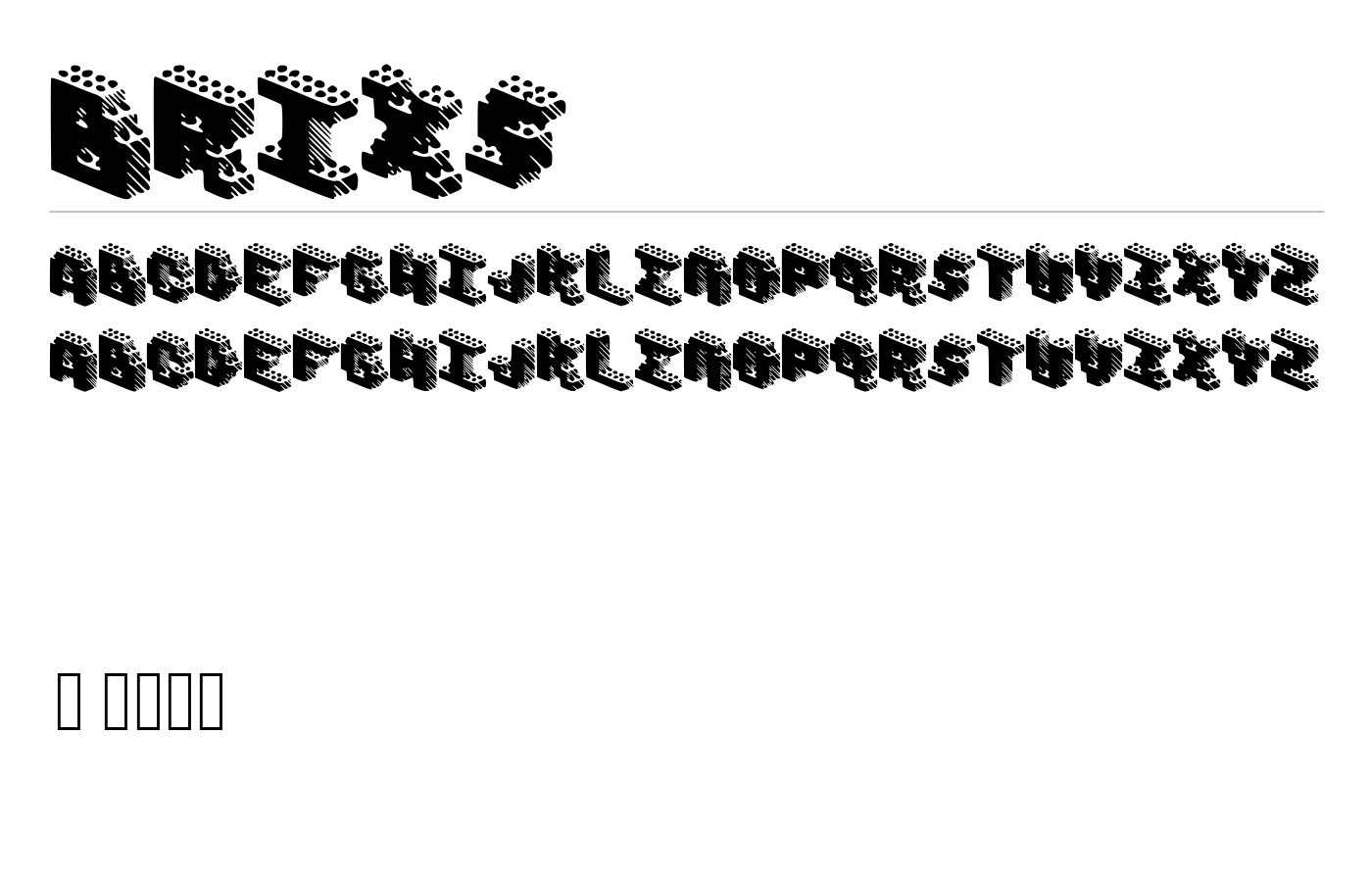
Brixs is a bold, decorative display font that features a unique 3D block style with a playful dotted texture on its surfaces, giving it a dynamic and eye-catching appearance. Its all-caps design and strong geometric forms make it ideal for headlines, logos, or posters where a fun, modern, and impactful look is desired. This font works best for creative branding and projects that want to convey energy and a sense of structure with a twist.
Brixs Font